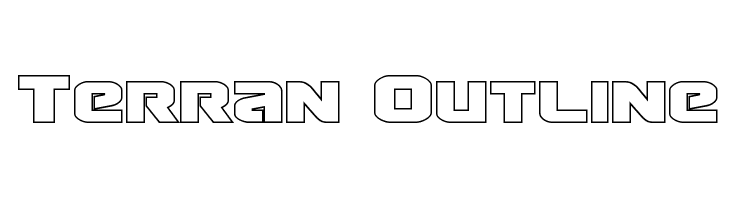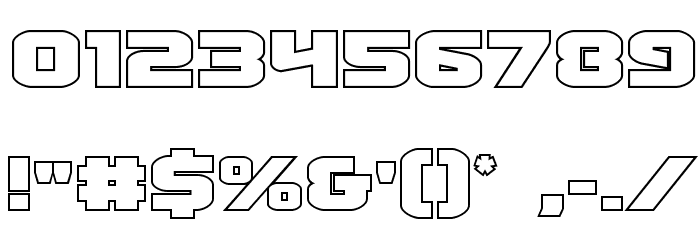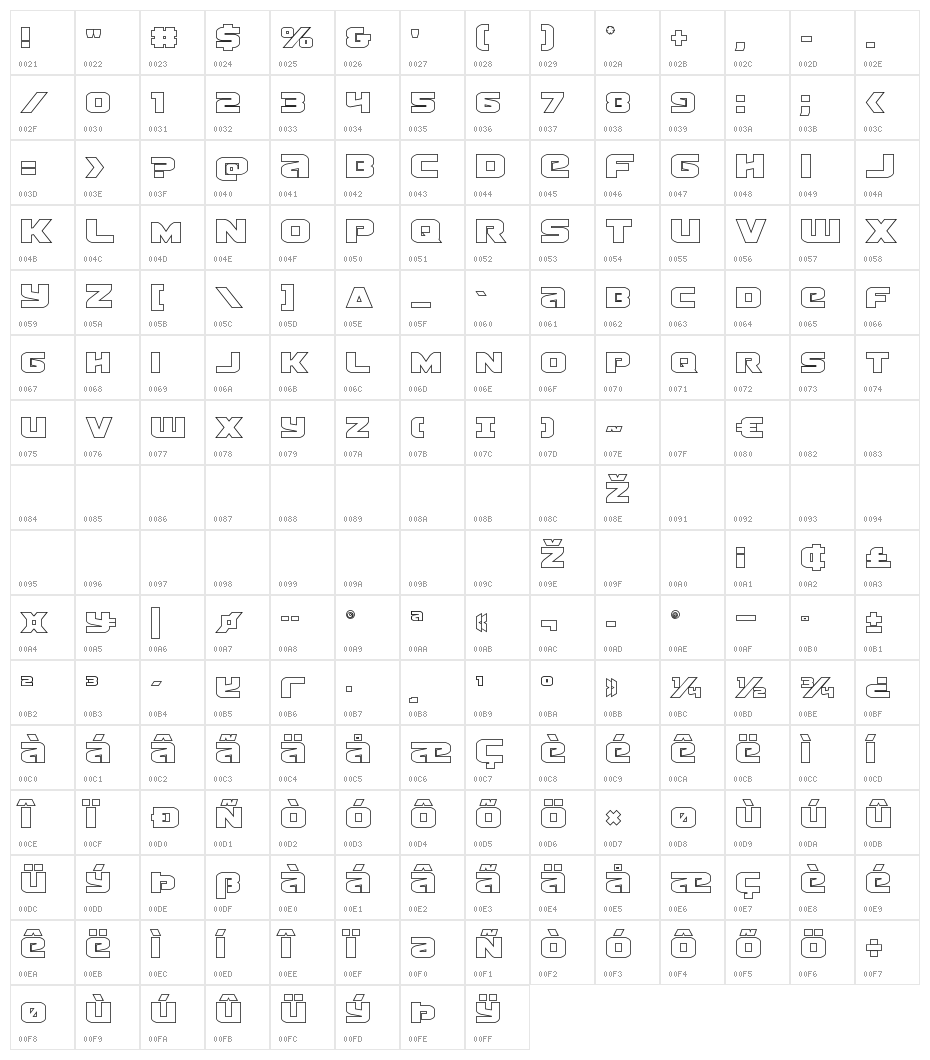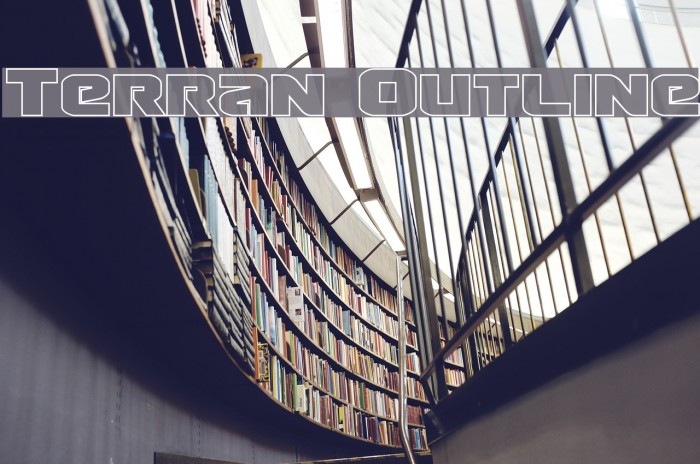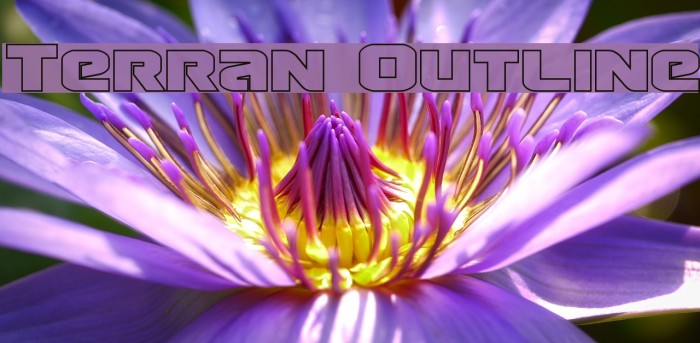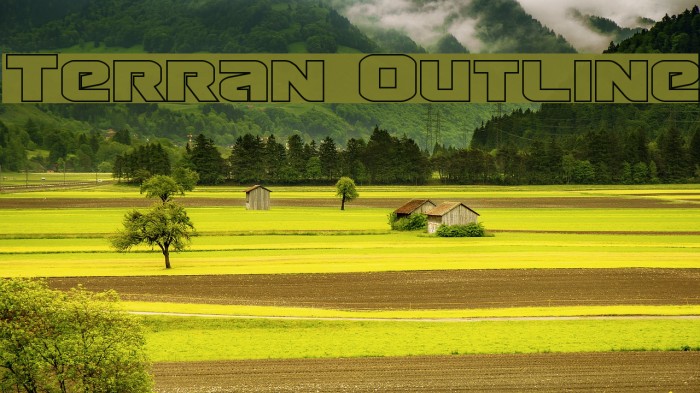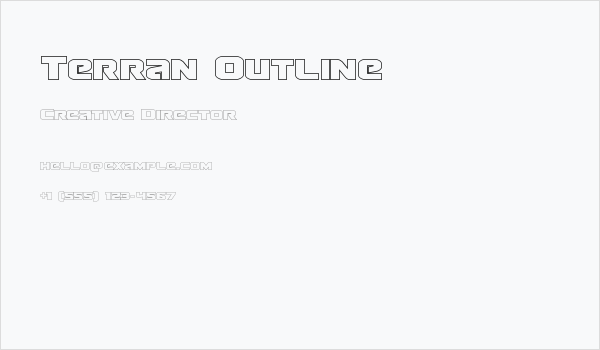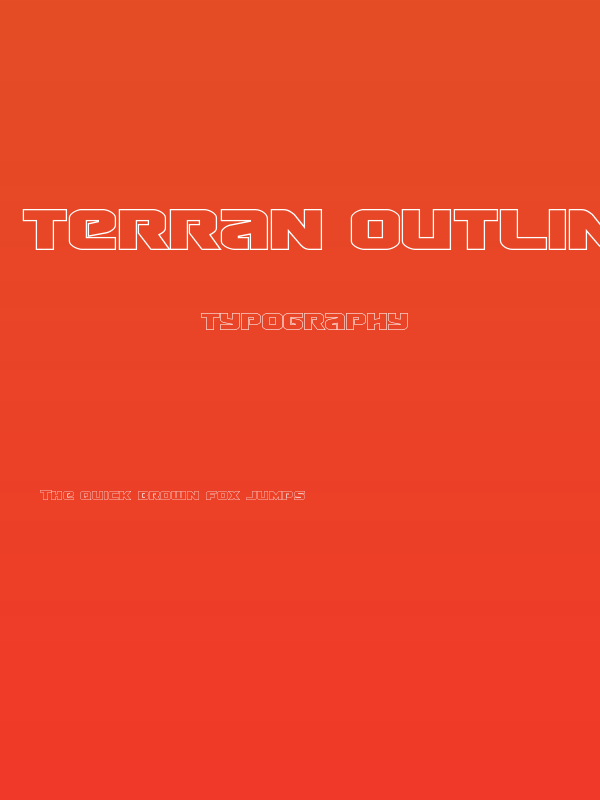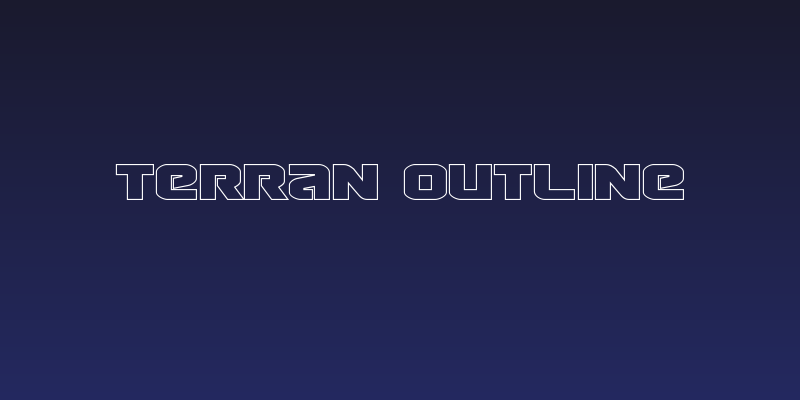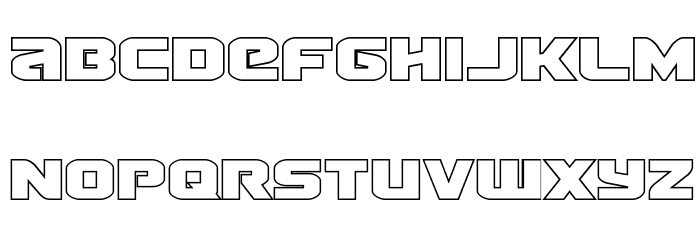
Terran Outline Font
Terran Outline Description
This font features a bold, geometric outline style that gives it a futuristic and tech-inspired appearance. The characters are constructed with clean, angular lines and a consistent stroke width, creating a uniform and structured look. The uppercase and lowercase letters maintain a similar design, enhancing the font's cohesive aesthetic. Numbers and special characters are designed to match the overall style, ensuring versatility across different uses. The font's outline nature makes it ideal for creating eye-catching designs where the text needs to stand out.
| Proposed Projects | Ideal for tech branding, sci-fi themed projects, video game titles, and modern posters. |